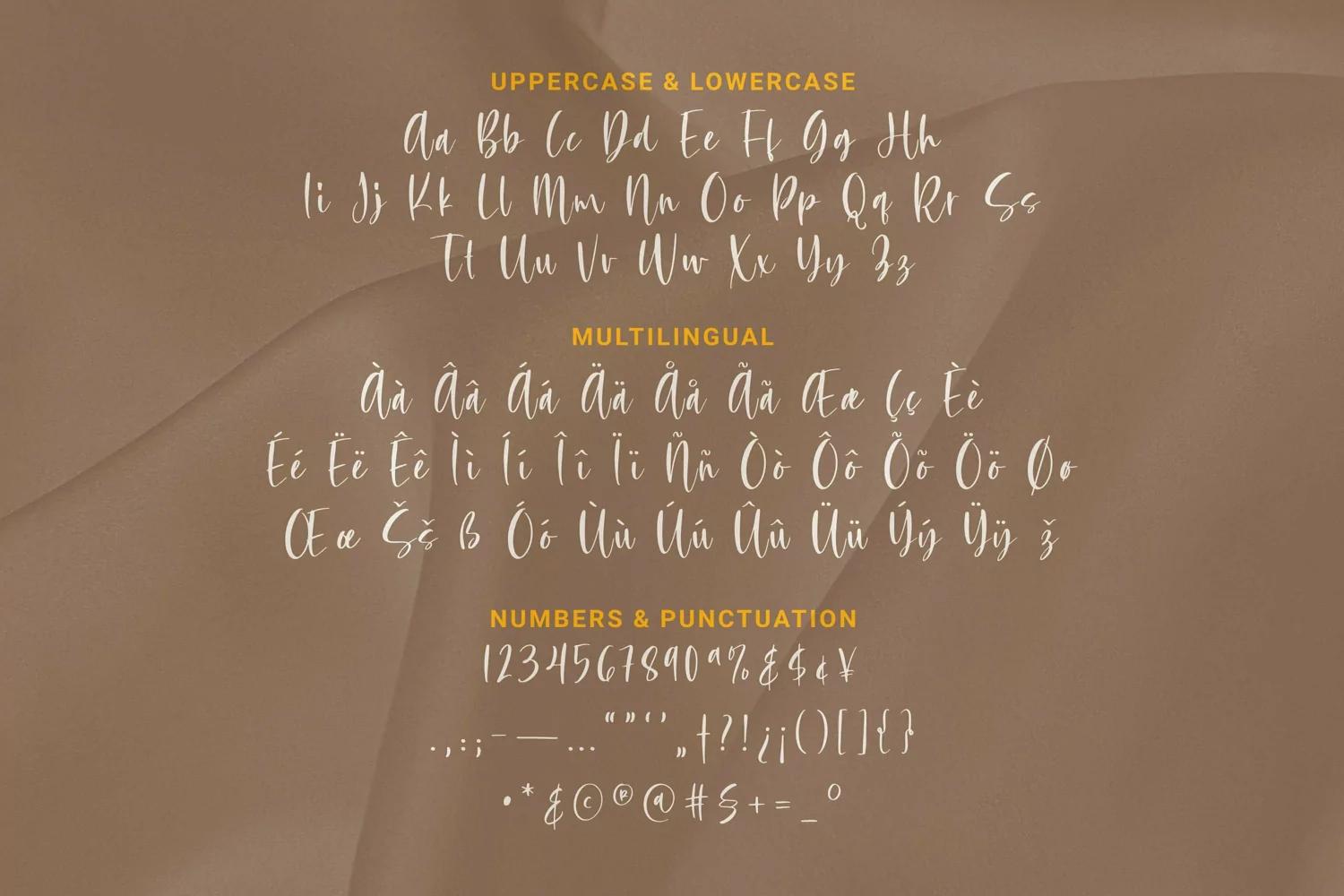
Web Font Sugarette
Web Font suitable for logotype, brand, packaging, quotes, music poster, t-shirt, cover book and more custom design. The features uppercase, lowercase, numeral, punctuation & symbol, multilingual support.